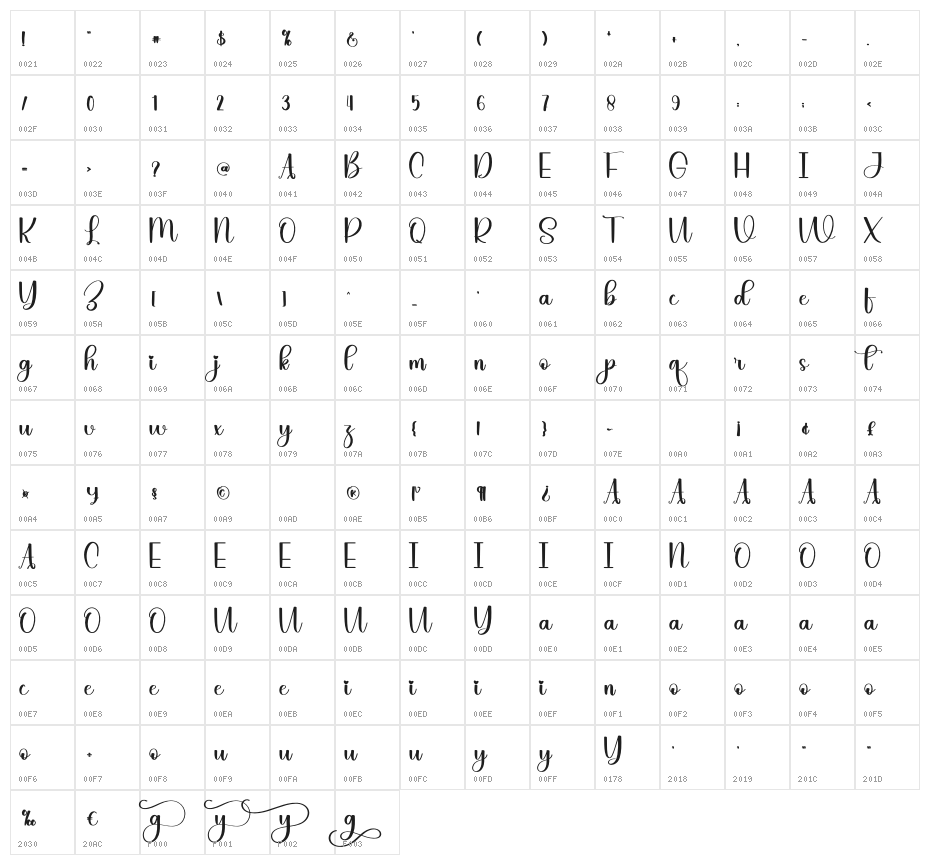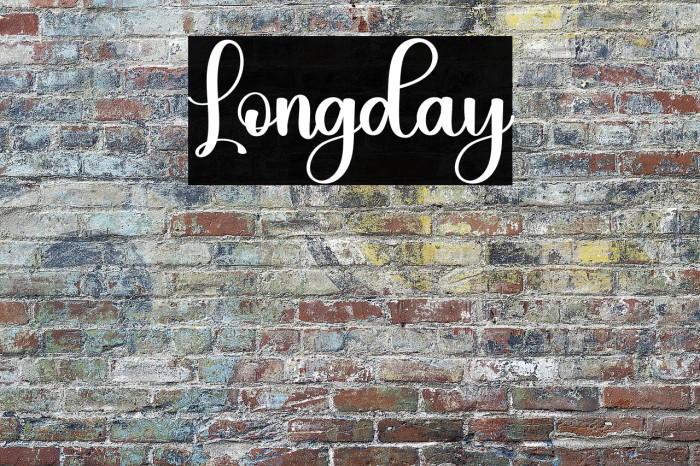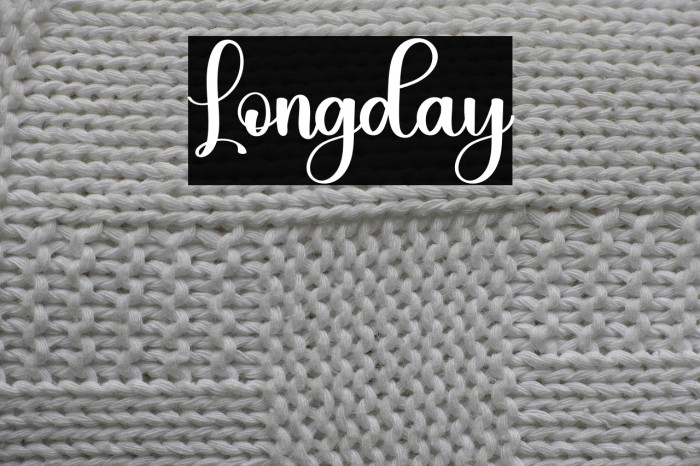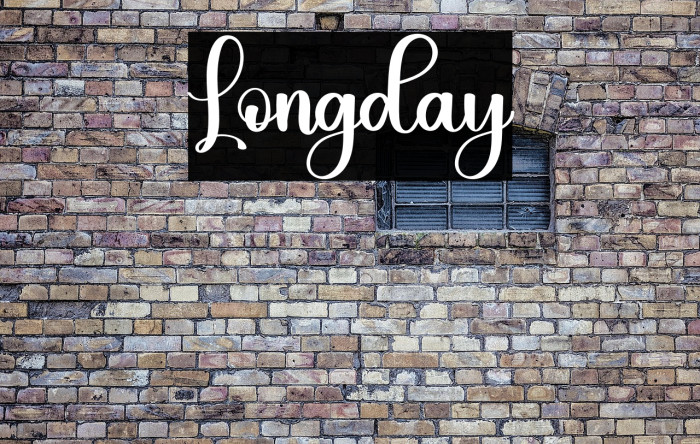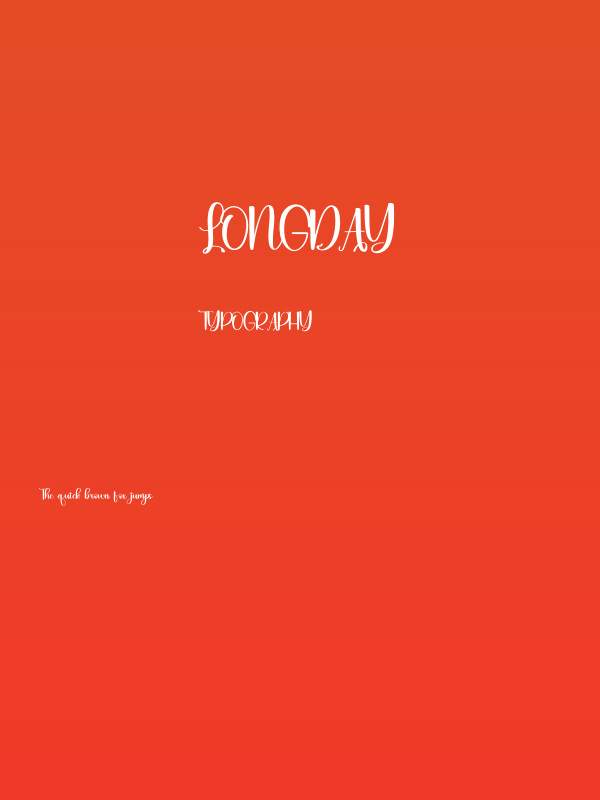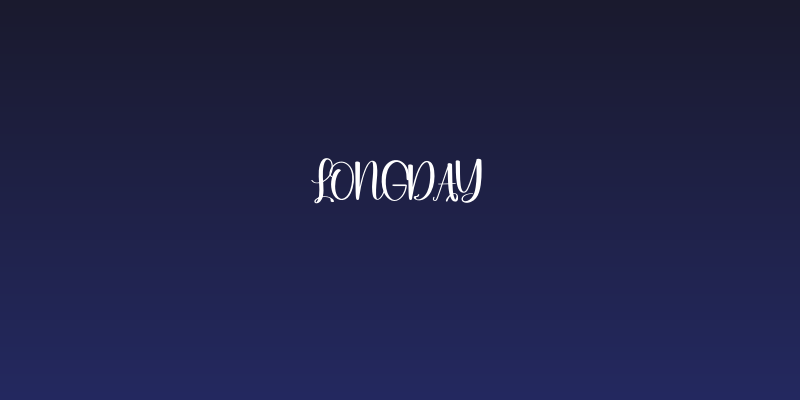
Longday Font
Longday Description
A decorative script font with flowing, elegant curves and a playful, handwritten style.
Use CaseLogos, Invitations, Decorative text
Proposed ProjectsInvitations, greeting cards, branding, logos.